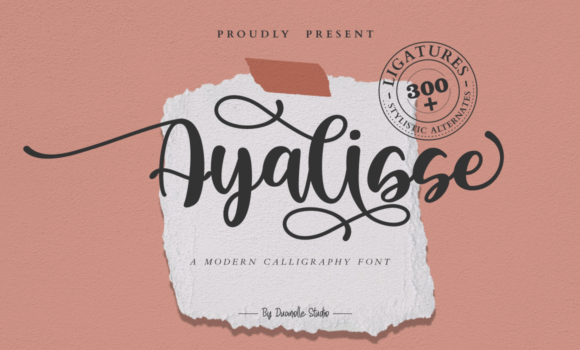
Ayalisse Font – Free Download Introduction to Ayalisse Font Ayalisse is a beautiful script written in a modern caligraphy style. 📸 Preview Gallery 6 images 📌 Product Name Ayalisse Font 👤 Author Creative Fabrica Author 📂 Category Explore ⬇️ Download